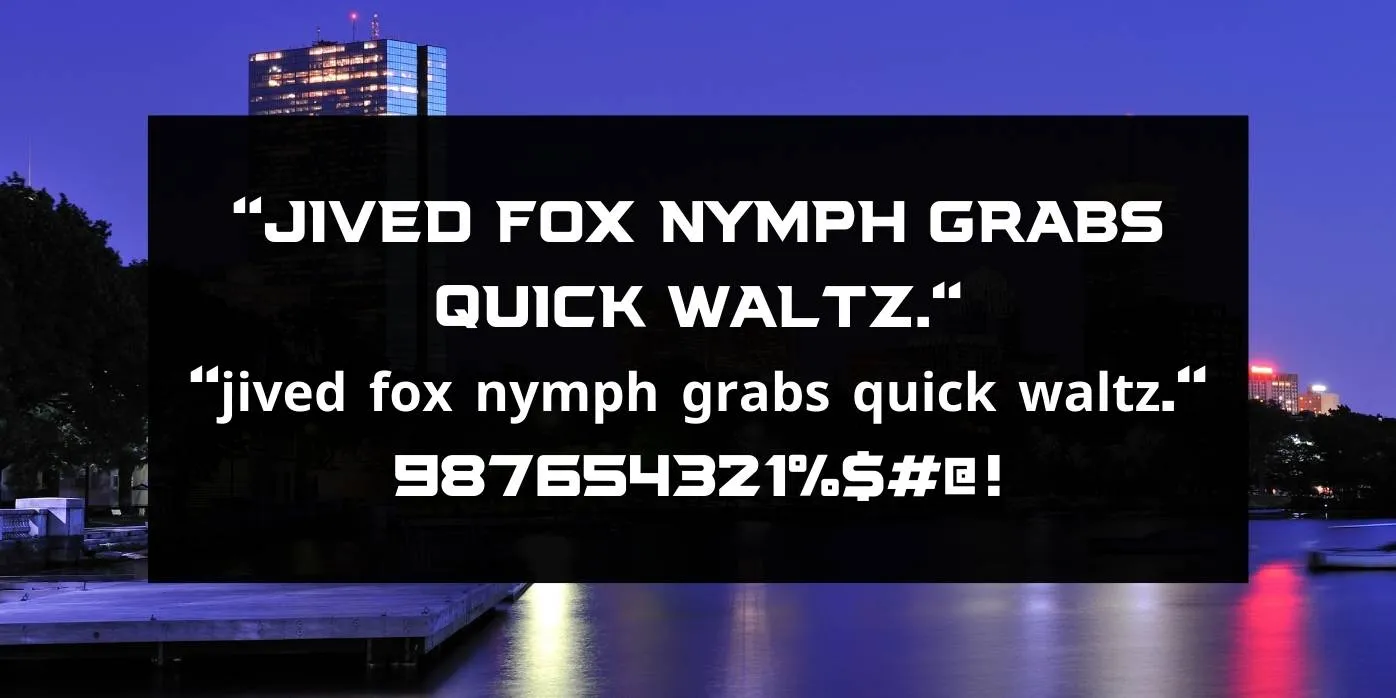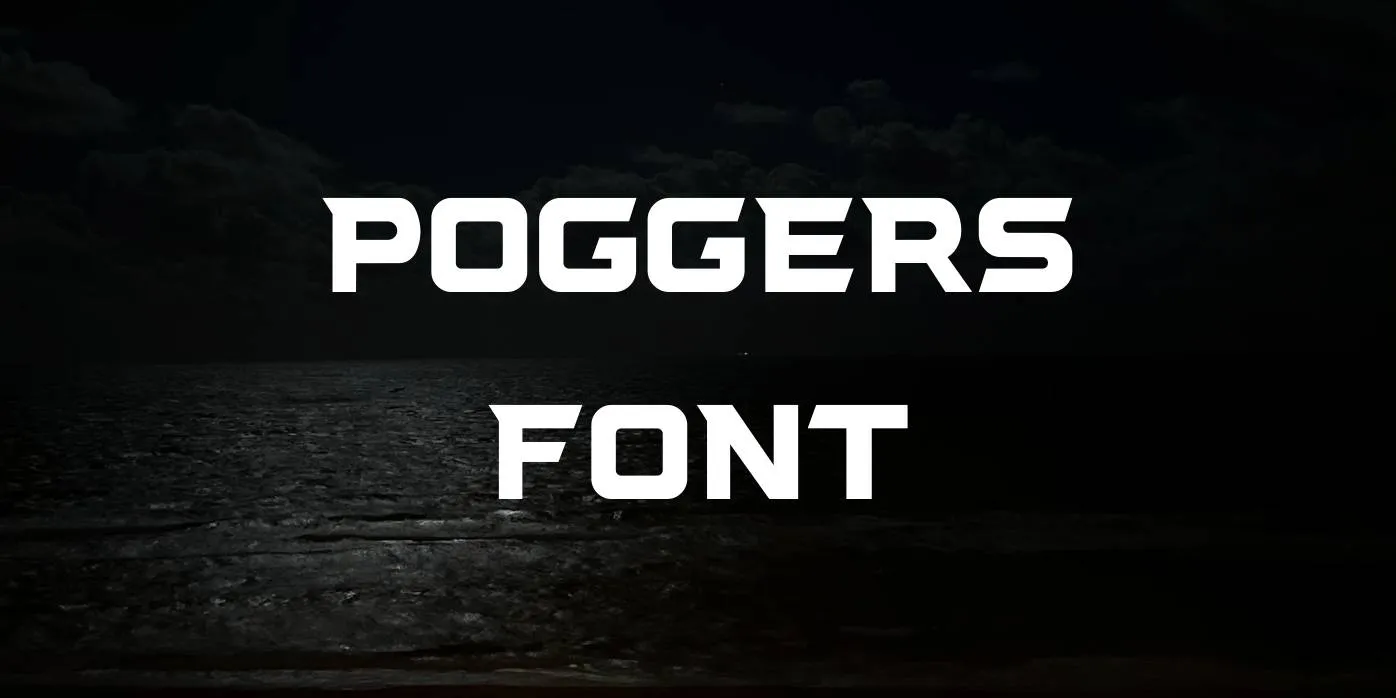
Poggers Font
Poggers font is a type of font that uses all characters only in caps it is designed by Travis Howell at Creative Grenade. It contains many features like capital letters, numbers, punctuation, symbols, and special characters. It consists of 70 characters only. This font consists of three weights named Poggers Light, Poggers Regular, and Poggers Bold.
The look of this font is very sharp and neat because of its all-caps look. It supports File. File formats that are supported by this font are TTF (Truetype font), OTF (Opentype font), WOFF (Web Open Font Format), WOFF2, and SVG (Scalable Vector Graphics Font). It has many elements which make your project look attractive and different.
Usage It has all caps sharp look which is very attractive. It can be used for making video games titles, logos, and main features of the games. This texture is perfect for making logotypes and attractive titles on website headers. You can also use it for making youtube thumbnails or making Facebook posts and streaming.
Its bold and caps attractive style makes your games and other projects look different. To elicit the best possible response from your audience, employ the flood font in tandem with this font family, optimizing the impact of your message. It can be used for making posters and banners so they can be read properly even from a distance. It is also a meme generator that is used as a fun design for your projects.
It has all caps sharp look which is very attractive. This typeface can be used for making video game titles, logos, main features of the games, logs of the games, and tech posters. It can also be used for making sports items to give them a very strong and bold look. What file formats are included in Poggers font?